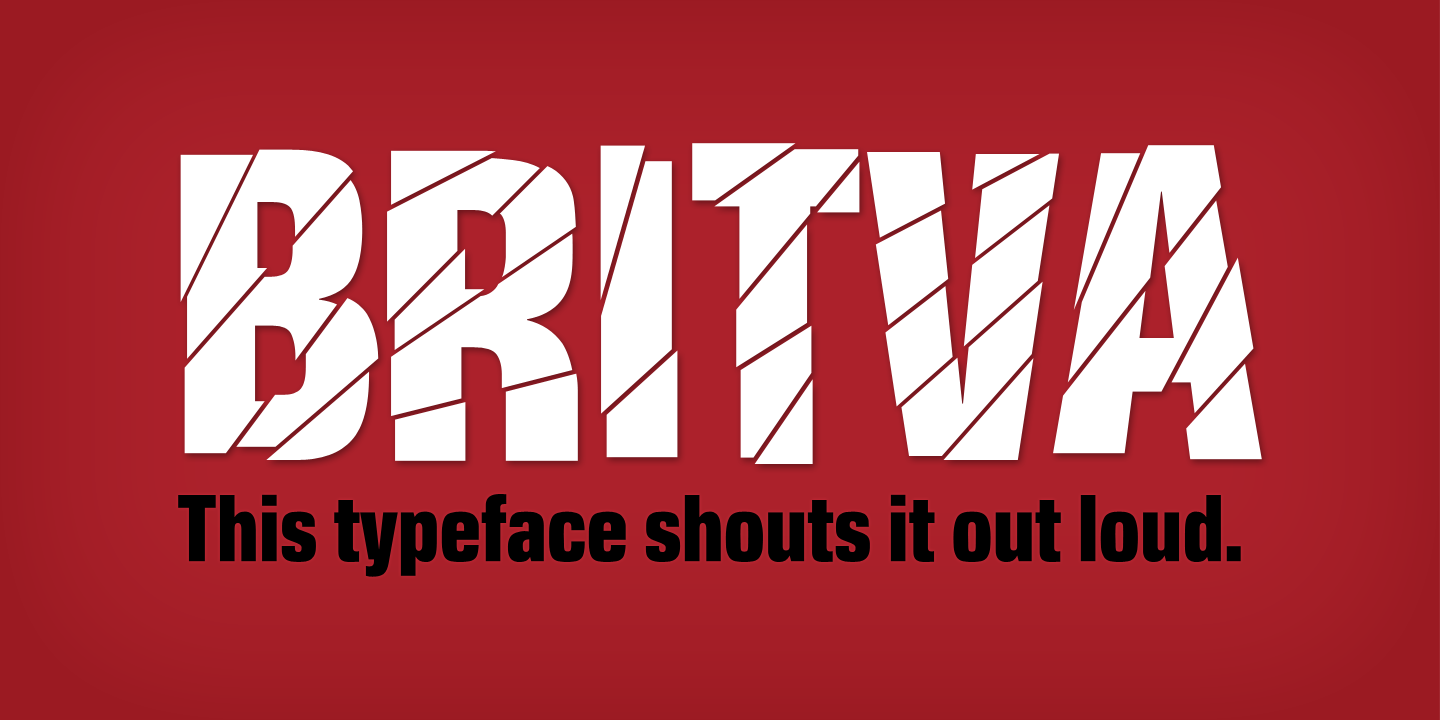
Britva (1 font)
From Juraj Chrastina Type
While Valibuk can write it loud, Britva literally shouts it out even louder.
The unbroken glyphs are accessible through OpenType contextual alternates.